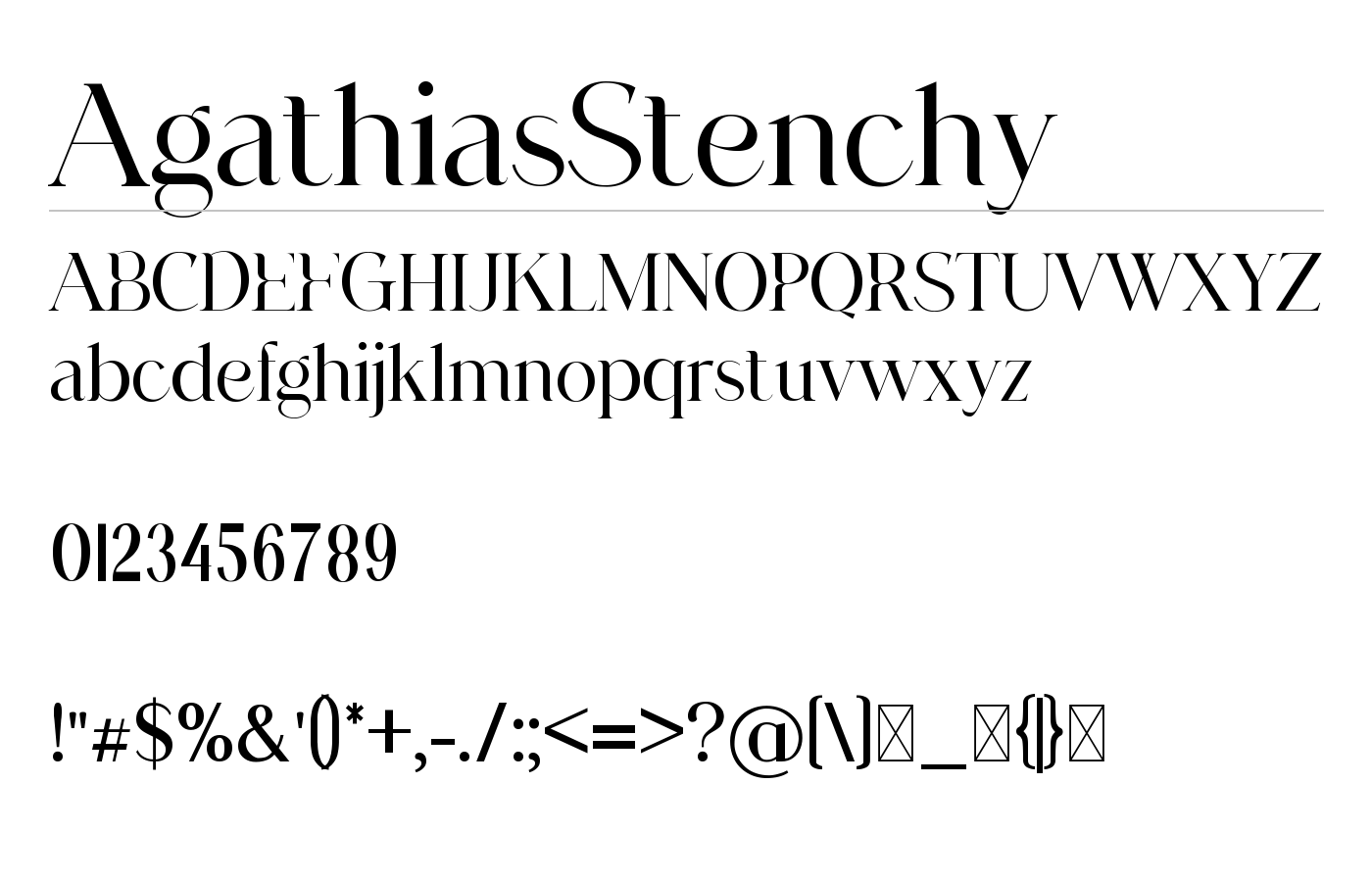
AgathiasStenchy is an elegant serif font with a refined modern twist, featuring high contrast between thick and thin strokes and delicate, sharply bracketed serifs. Its slender, tall letterforms with unique detailing, such as the distinctively curved tail on the Q and the double-story g, give it a sophisticated and stylish appearance perfect for luxury branding, editorial headlines, and upscale packaging. This font excels in settings where a blend of classic grace and contemporary flair are desired, making it ideal for fashion magazines, premium product designs, and elegant logos.
AgathiasStenchy Font
About AgathiasStenchy Font